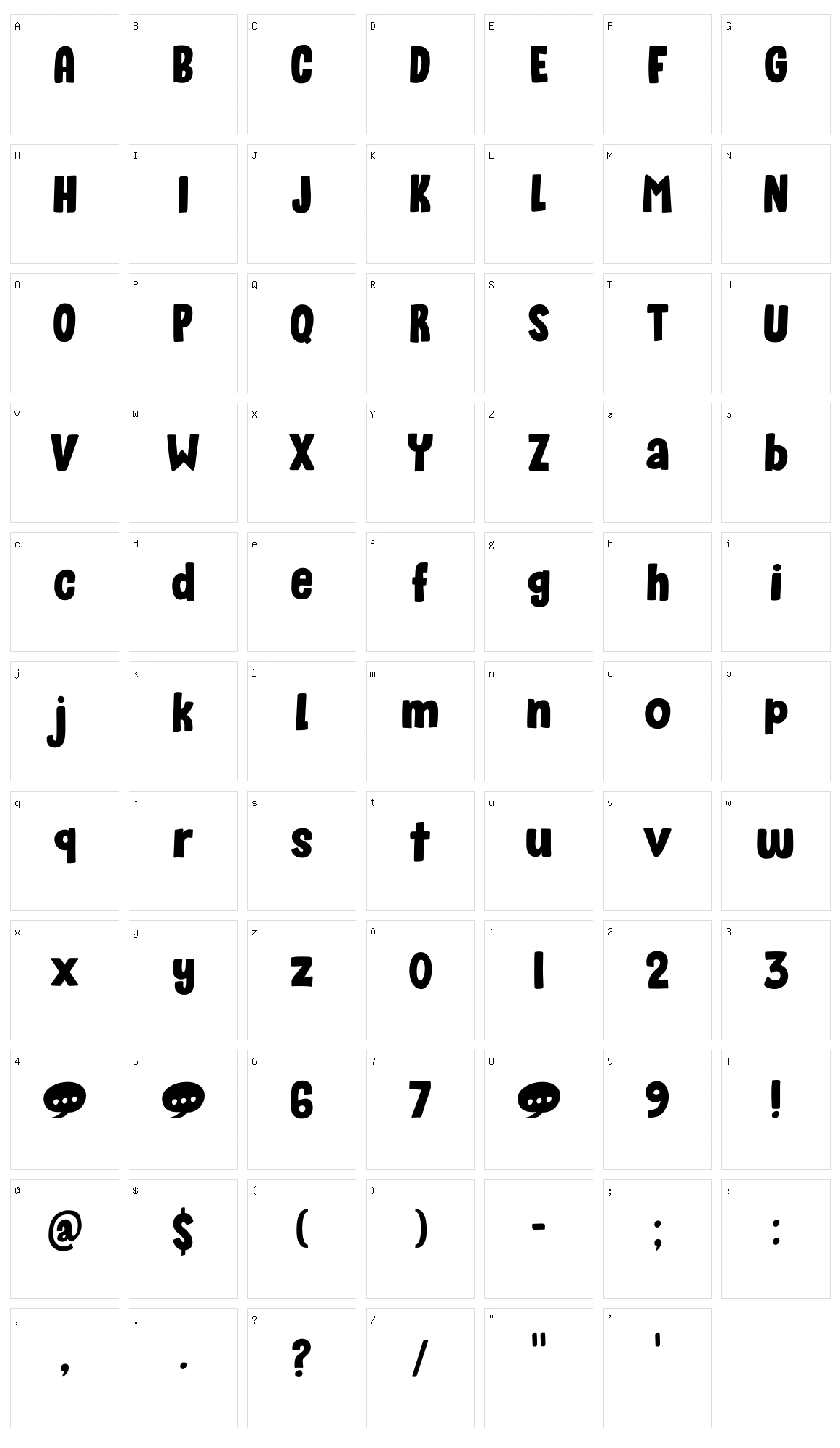
The free font Sound Bubble is carefully designed by Hanoded, showcasing a thoughtful balance of creativity and usability and falls under the Cartoon font style. When you download the ZIP file, it contains only 124.54 KB of font files, making it lightweight and quick to download. Please review the license details below to understand permitted usage and distribution rights. If license information is not available, we recommend using this font for personal projects only or contacting the author directly for commercial usage permissions.